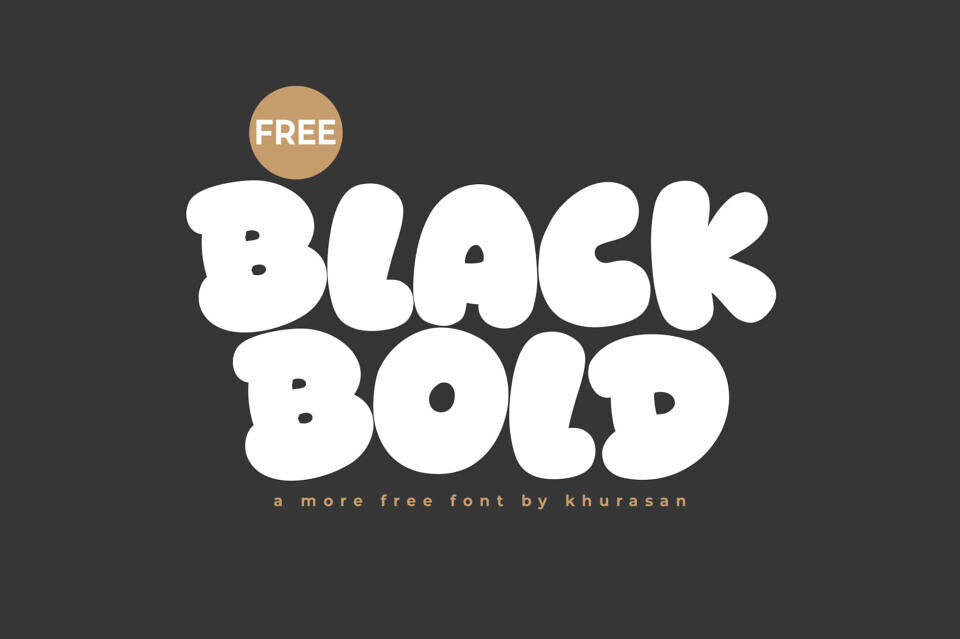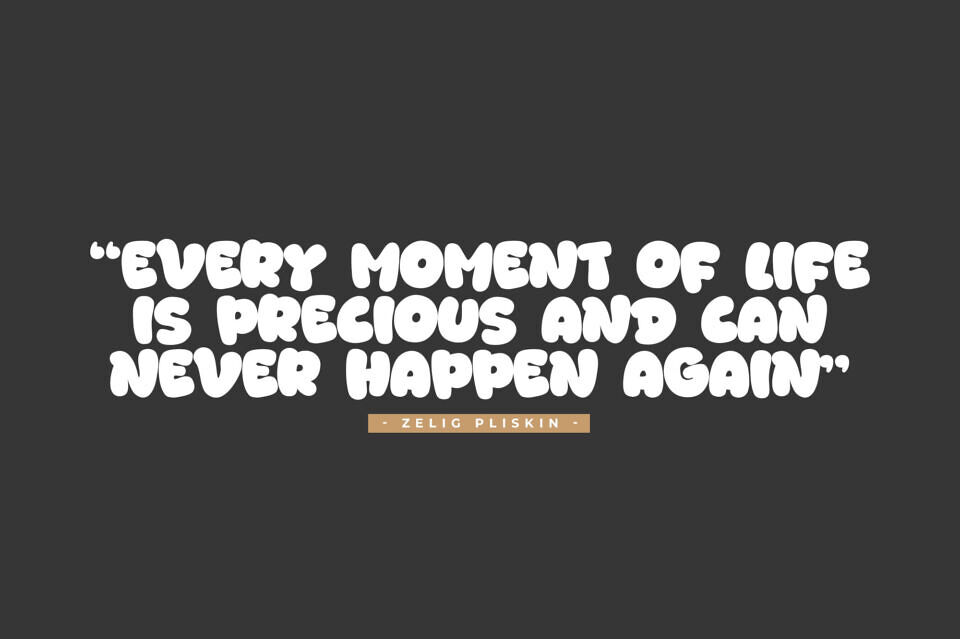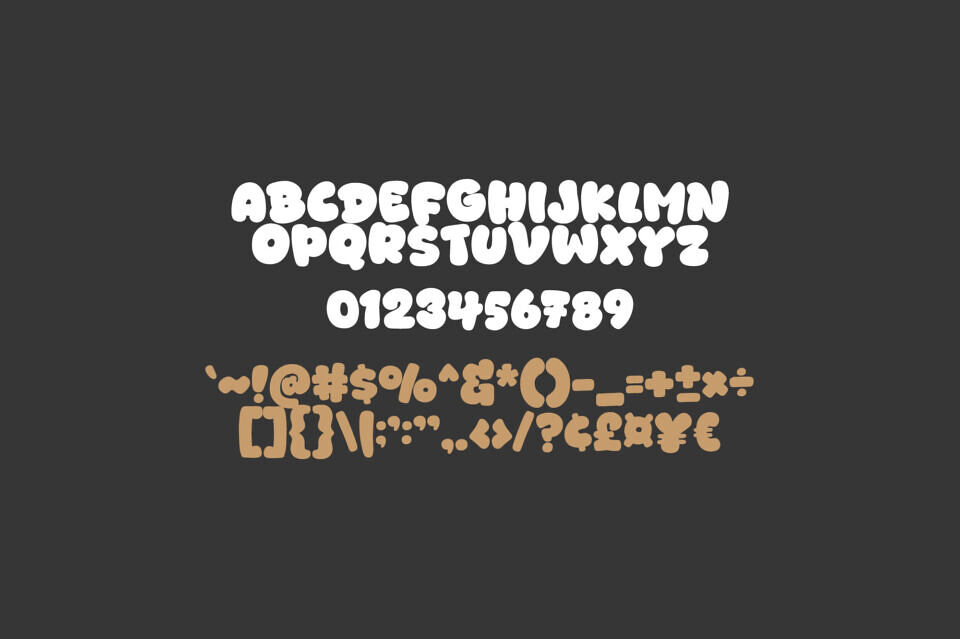
Add a punch of playful energy to your creative projects with BlackBold, a chunky bubble display font designed for maximum friendliness. This typeface features heavy, pillowy letterforms with soft, rounded corners and a tight, rhythmic spacing that makes every word feel substantial yet approachable.
Its extra-bold weight and hand-drawn aesthetic make it an exceptional choice for children’s product packaging, vibrant comic book titles, energetic social media graphics, and bold apparel branding.